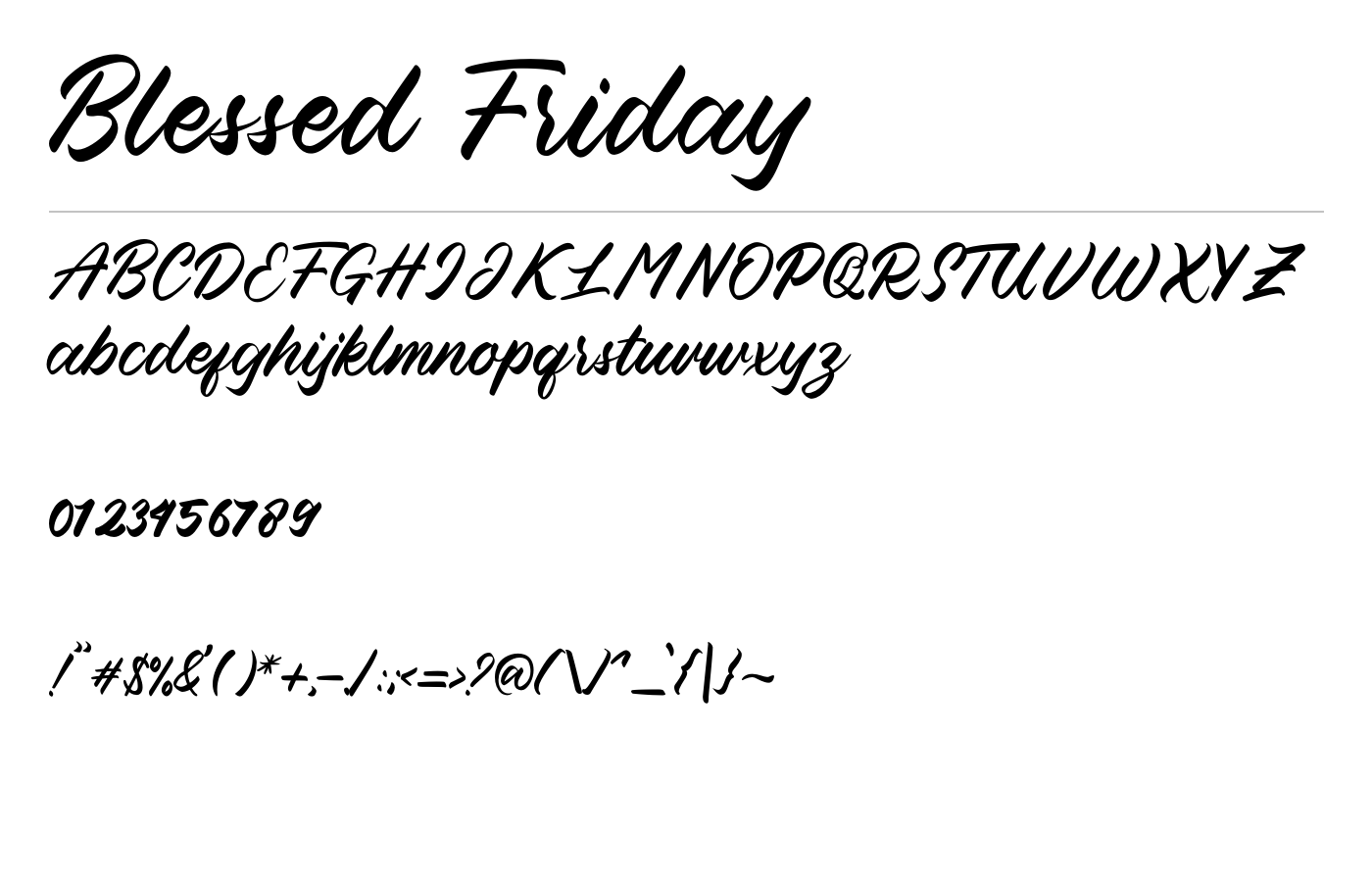
Blessed Friday is a lively script font with a smooth, handwritten flow that feels both elegant and approachable. Its moderate weight and fluid, slightly slanted letterforms make it perfect for adding a personal, warm touch to branding, invitations, and headlines where a casual yet stylish vibe is desired. This font works beautifully in creative projects that aim to convey friendliness and charm while maintaining a polished appearance.
Blessed Friday Font
About Blessed Friday Font
| Font family | Blessed Friday Font |
| Designer | Ade Santani |
| Trademark | Sancrea Studio |